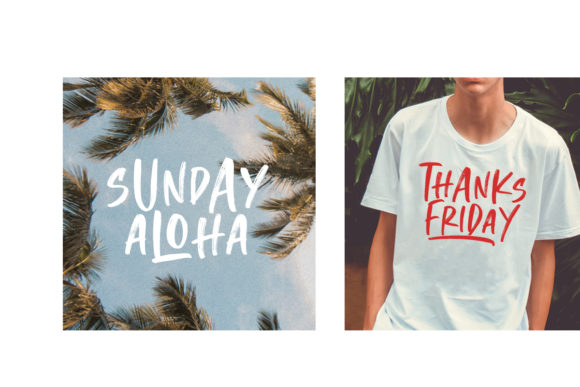
Crooked Hooks Font: Elevate Your Creative Projects with a Bold and Chunky Display Font
In the world of typography, a font can make or break the visual appeal of a design project. When it comes to creating stunning text-based designs, the right font can elevate your creative ideas to new heights. Introducing Crooked Hooks, a bold, chunky charactered display font designed with an outstanding brush pen. This font has the potential to bring each of your creative ideas to the highest level, making it a must-have for designers, artists, and crafty enthusiasts.
What is Crooked Hooks Font?
Crooked Hooks is a unique and eye-catching display font that features bold, chunky characters with a distinctive brush pen style. The font’s design is inspired by the imperfections and quirks of handwriting, giving it a personal and artistic touch. With its sturdy and confident appearance, Crooked Hooks is perfect for making a statement in any design project.
Key Features of Crooked Hooks Font
- Bold and Chunky Characters: Crooked Hooks features thick, heavy characters that demand attention and make a lasting impression.
- Brush Pen Design: The font’s design is inspired by the natural flow and imperfections of brush pen writing, giving it a unique and artistic feel.
- Display Font: Crooked Hooks is specifically designed as a display font, making it perfect for headlines, titles, and other prominent text elements.
- High Versatility: The font’s bold and chunky design makes it suitable for a wide range of design projects, from posters and flyers to logos and branding materials.
Benefits of Using Crooked Hooks Font
So, why should you choose Crooked Hooks for your design projects? Here are just a few benefits of using this amazing font:
- Adds Personality to Your Designs: Crooked Hooks’ unique and artistic design allows you to add a personal touch to your designs, setting them apart from the crowd.
- Enhances Readability: The font’s bold and chunky characters make it easy to read, even at smaller sizes, ensuring that your message gets across clearly.
- Boosts Creativity: With Crooked Hooks, you can experiment with different design ideas and styles, pushing the boundaries of your creativity.
- Time-Saving: The font’s versatility and ease of use save you time and effort, allowing you to focus on other aspects of your design project.
How to Use Crooked Hooks Font
Using Crooked Hooks is easy and straightforward. Here are a few tips to get you started:
- Pair it with Other Fonts: Combine Crooked Hooks with other fonts to create a unique and visually appealing typography.
- Experiment with Colors: Try out different colors and textures to add depth and interest to your design.
- Play with Size and Layout: Experiment with different font sizes and layouts to create a dynamic and engaging design.
Crooked Hooks Font in Graphic Design
Crooked Hooks is an incredibly versatile font that can be used in a wide range of graphic design projects, including:
- Posters and Flyers: Use Crooked Hooks to create eye-catching headlines and titles that grab attention.
- Logos and Branding: The font’s bold and chunky design makes it perfect for creating memorable logos and branding materials.
- Social Media Graphics: Use Crooked Hooks to add a personal touch to your social media graphics and stand out from the crowd.
Crooked Hooks Font in Digital Design
Crooked Hooks is not just limited to print design. The font can also be used in digital design projects, such as:
- Web Design: Use Crooked Hooks to create bold and eye-catching headlines and titles for your website.
- Email Marketing: The font’s clear and readable design makes it perfect for use in email marketing campaigns.
- Digital Art: Crooked Hooks can be used to add a personal touch to digital art and illustrations.
Tips and Tricks for Using Crooked Hooks Font
Here are a few tips and tricks to help you get the most out of Crooked Hooks:
- Use it Sparingly: While Crooked Hooks is a bold and eye-catching font, it can be overwhelming if overused. Use it sparingly to create a lasting impression.
- Experiment with Effects: Try out different effects, such as textures and gradients, to add depth and interest to your design.
- Keep it Simple: Don’t be afraid to keep your design simple and clean. Crooked Hooks’ bold design can speak for itself.
In conclusion, Crooked Hooks is an amazing font that can elevate your creative projects to new heights. With its bold and chunky design, versatility, and ease of use, this font is perfect for designers, artists, and crafty enthusiasts. Whether you’re working on a graphic design project, digital design project, or simply looking for a unique font to add some personality to your designs, Crooked Hooks is an excellent choice.